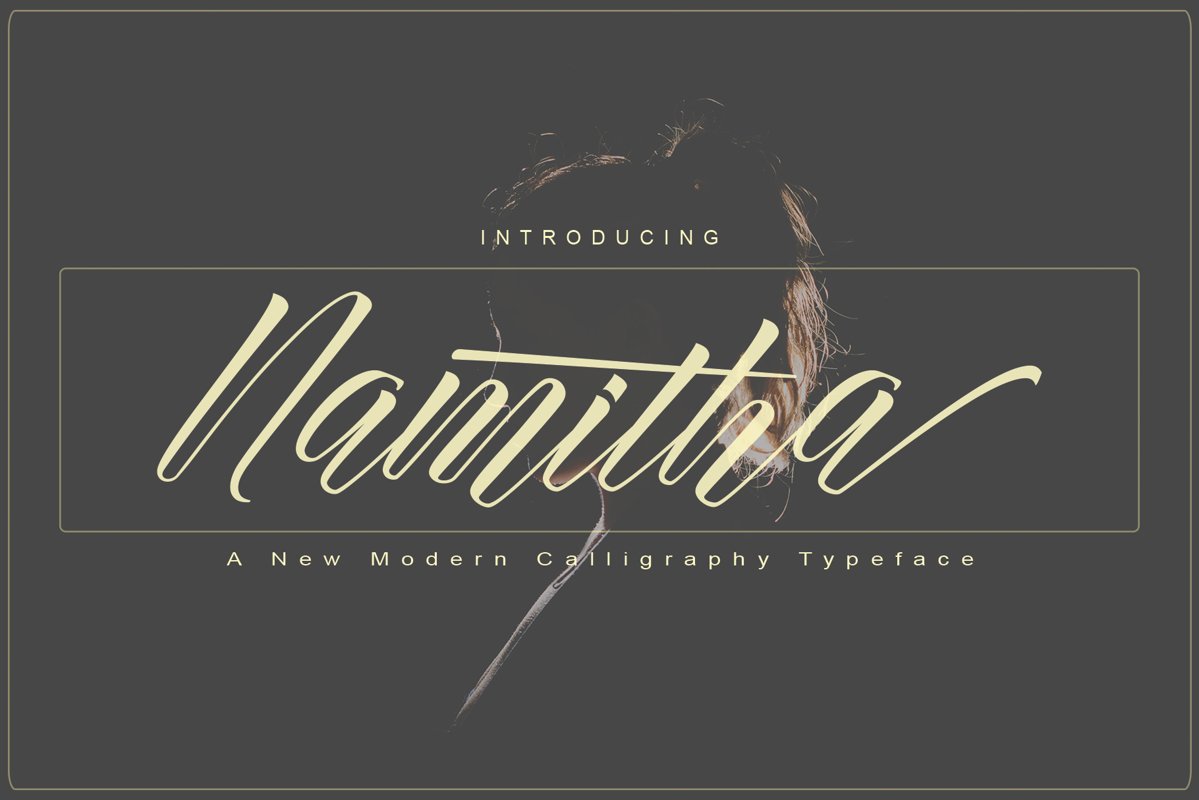
Namitha
Introducing:
Namitha a font work that is purely handwritten, has its own characteristics with the style of script font. this is perfect for invitations, signatures, blogs, social media, business cards, product brands.
Namitha has Stylistic standard, Stylistic Alternate, Stylistic Sets and ligatures. and includes uppercase and lowercase letters, numbers and punctuation marks.
The Features of this fonts is;
* Standart ligatures
* Stylistic Alternates
* Contextual Alternates
* Stylistic sets